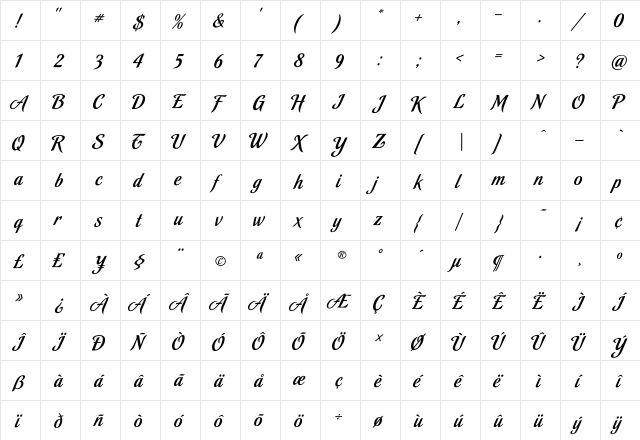
Malbeck Regular
Design Context for Malbeck Typeface
Malbeck is a composed and adaptable typeface that performs quietly and consistently across a wide range of design contexts.
Pro Tip: Pair Malbeck with a font of contrasting weight or personality to build a more expressive typographic hierarchy.